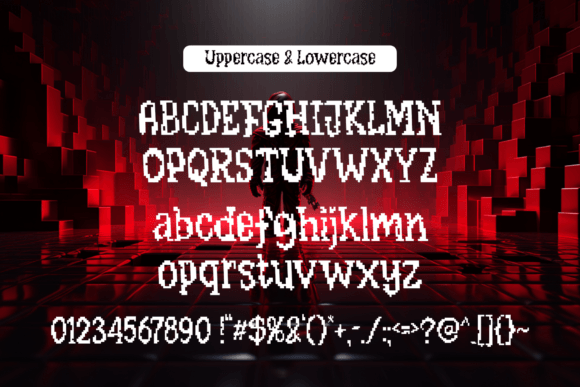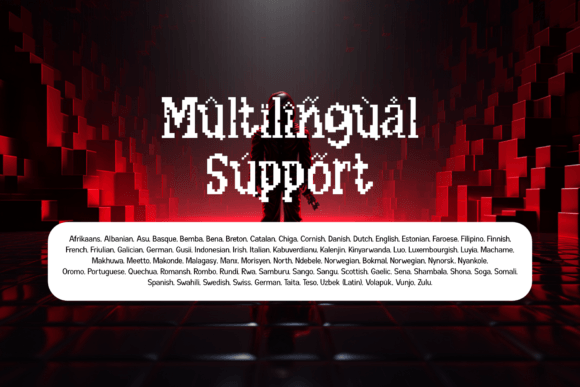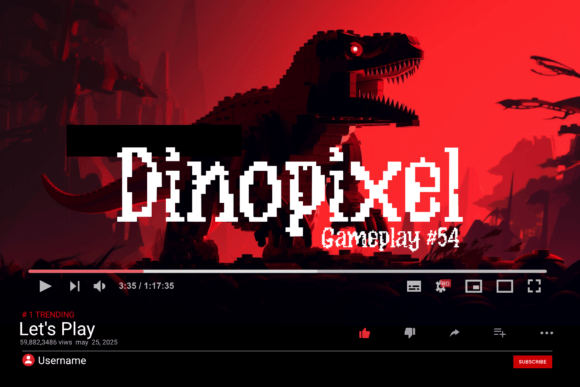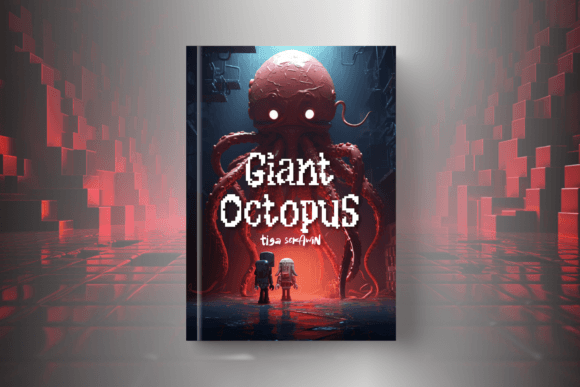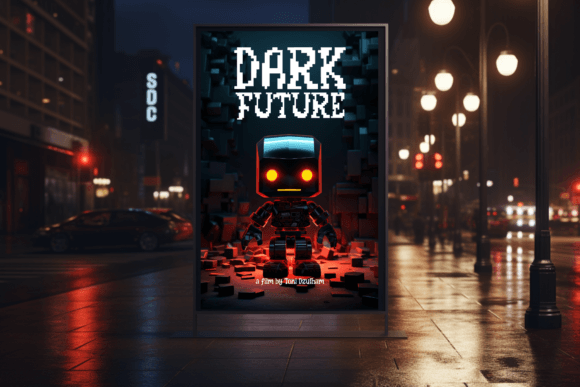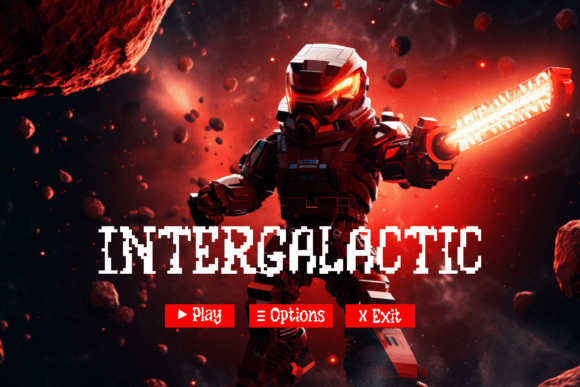
Introduction to Digipixel Font
Digipixel is a type of Display font that adopts a pixel art style.
This font displays characters with shapes inspired by pixel art, where each character is formed by a set of dots (pixels) that create images or letters The main distinctive feature of Digipixel is its reminiscent appearance of classic video games and graphics from the past.